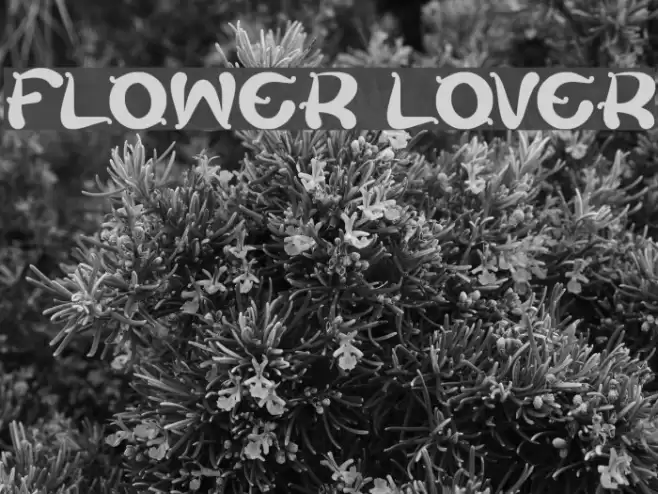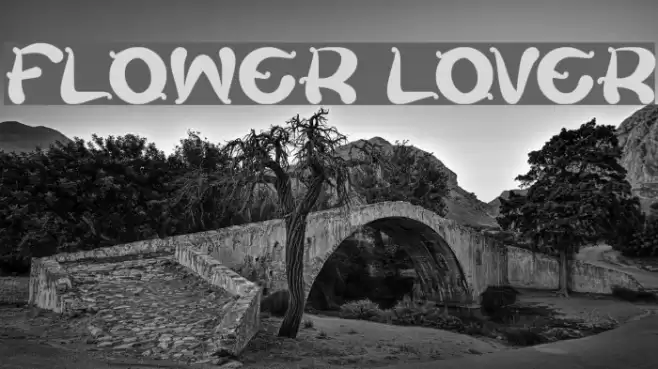
flower lover Font
flower lover Description
This font features a unique and decorative style with floral elements integrated into each character. The uppercase letters have a bold and artistic flair, with curves and swirls that mimic the natural flow of petals and vines. The design is consistent across all characters, providing a cohesive look that is both eye-catching and elegant. The font's playful yet sophisticated appearance makes it suitable for creative projects where a touch of nature or whimsy is desired. Its intricate details are best appreciated at larger sizes, making it ideal for headlines or display purposes.
A decorative font with floral elements and artistic curves from Uncategorized fonts.
- Proposed Projects: Ideal for wedding invitations, greeting cards, nature-themed branding, and artistic posters.
- Use Case: Headlines, Logos, Display text